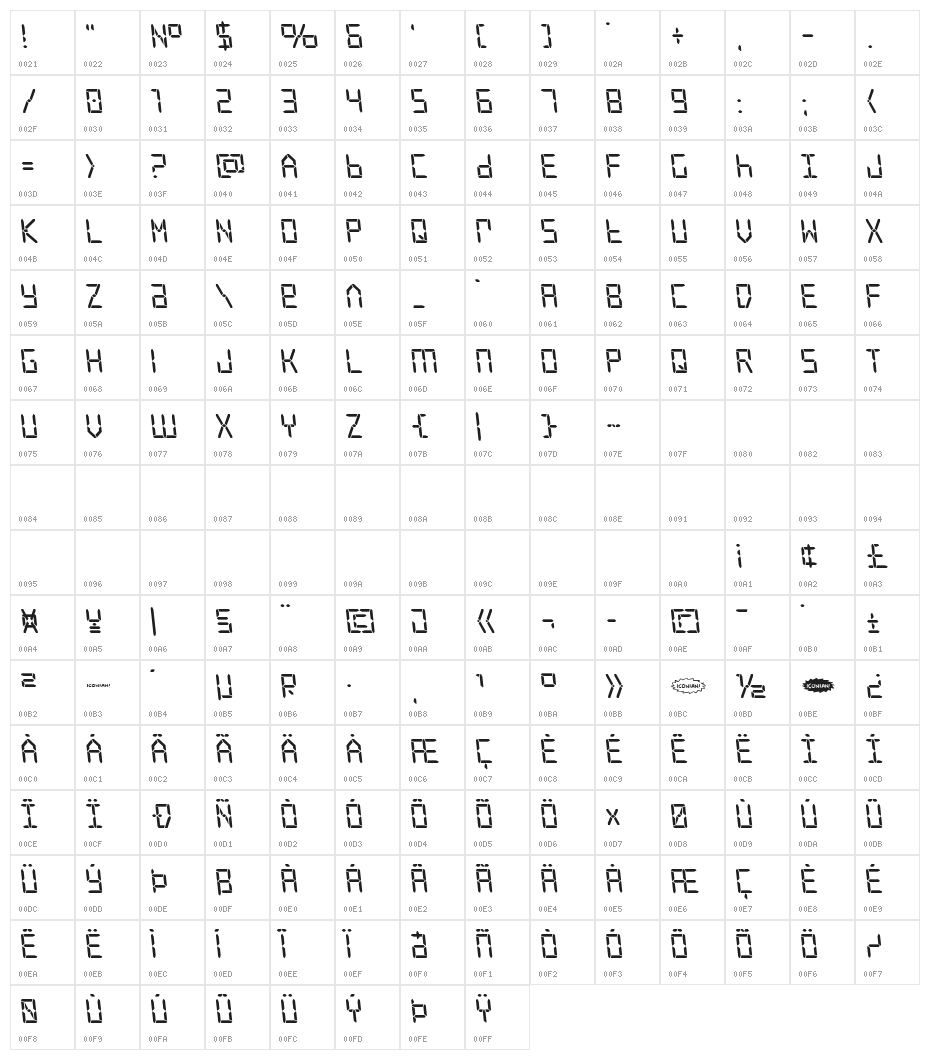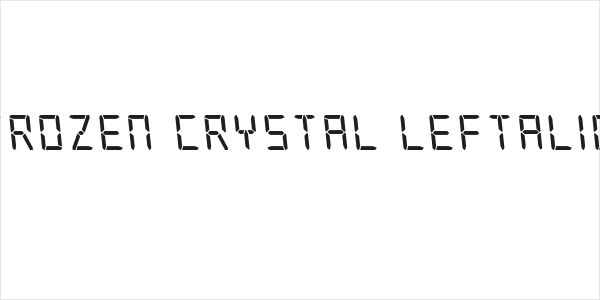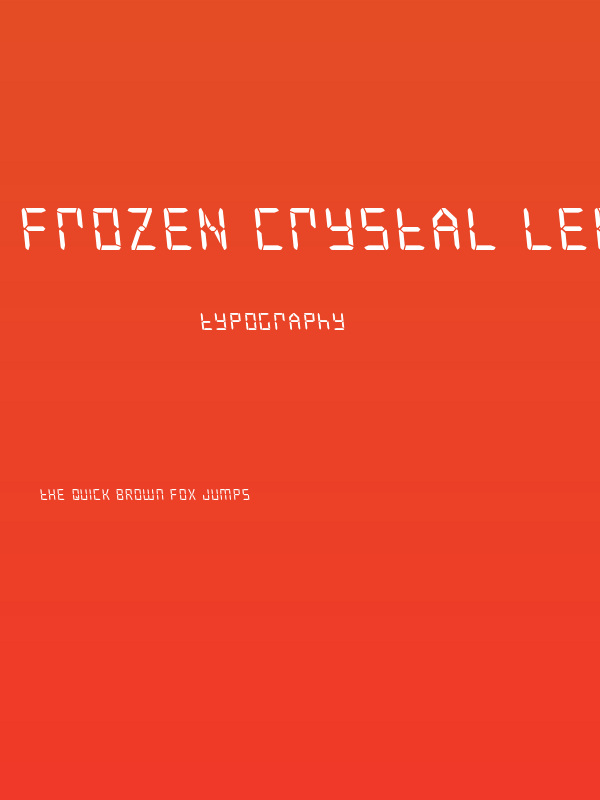
Frozen Crystal Leftalic Font
Frozen Crystal Leftalic Description
This font features a geometric, angular design reminiscent of digital or LED displays. Each character is constructed from straight lines and sharp angles, creating a futuristic and technical appearance. The style is consistent across uppercase, lowercase, numerals, and special characters, maintaining a uniform and cohesive look. The font's structure is bold and impactful, making it highly legible even at smaller sizes. Its unique design is ideal for projects that require a modern, tech-inspired aesthetic.
| Proposed Projects | Ideal for digital interfaces, tech branding, futuristic posters, and electronic-themed designs. |